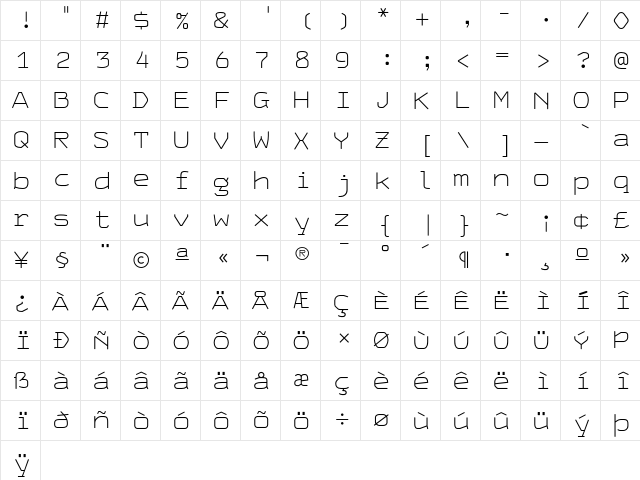
HardCase UltraLight
Design Context for HardCase Typeface
HardCase takes a measured approach to typography — its balanced proportions and neutral character make it a reliable workhorse for both digital and print work. The delicate stroke weight brings airiness and refinement to layouts.